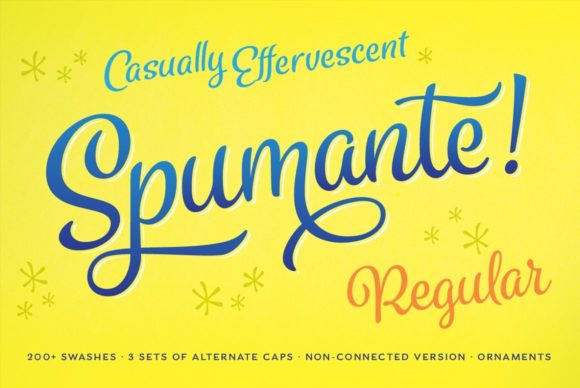
Step into the world of Spumante Font, a captivating script font family that will infuse your designs with a touch of bubbly elegance and sophistication. Inspired by the exhilarating effervescence of its namesake wine, Spumante exudes a playful and inviting charm that will leave your audience enticed and refreshed.
With its slim, semi-connected script and lithely upright curves, Spumante dances across the baseline like a graceful ballerina. The subtle variations in the slant of each letter add a touch of authenticity and humanness, creating a delightful sense of movement and vibrancy.
Spumante effortlessly transitions from understated femininity to cocktail-party chic with just a few clicks. Its versatility extends from food packaging and menus to cosmetic labels, book covers, greeting cards, and invitations. Unleash your creativity and let Spumante bring a touch of bubbly magic to your designs.
Delve into the treasure trove of over 200 swashes, alternates, and ornaments that accompany Spumante. Embrace the freedom to customize your designs and let your imagination run wild. Alternatively, utilize the titling alternates found in the OpenType menu for a minimalist, unconnected look that exudes sophistication and elegance.
Whether you're crafting packaging that tantalizes taste buds or designing labels that evoke a sense of luxury, Spumante is the perfect choice for adding a touch of bubbly charm to your creations. Its playful yet refined nature will leave your audience captivated and eager for more.
Spumante Font: Where effervescence meets elegance.